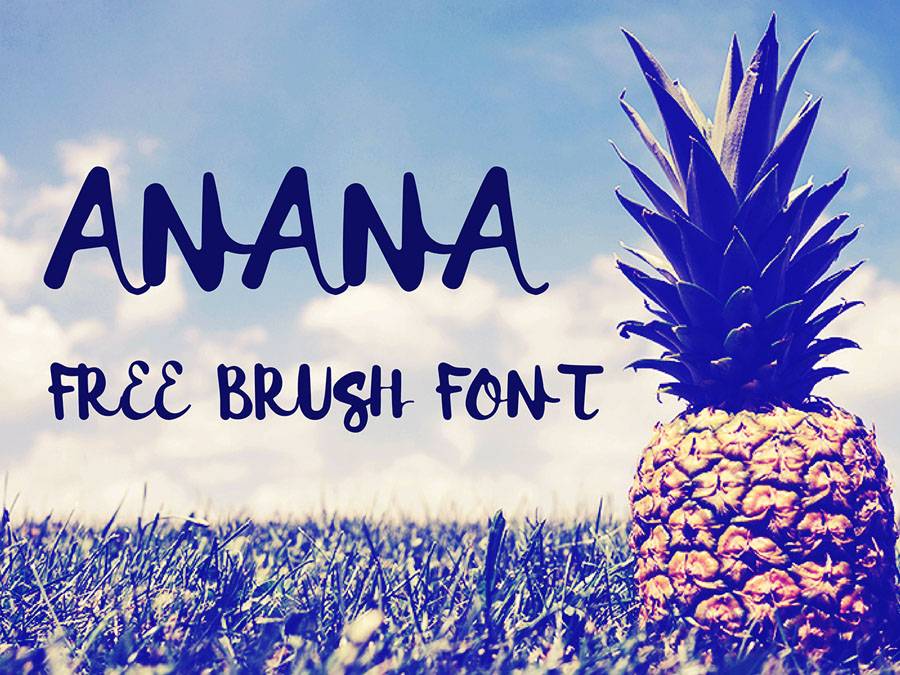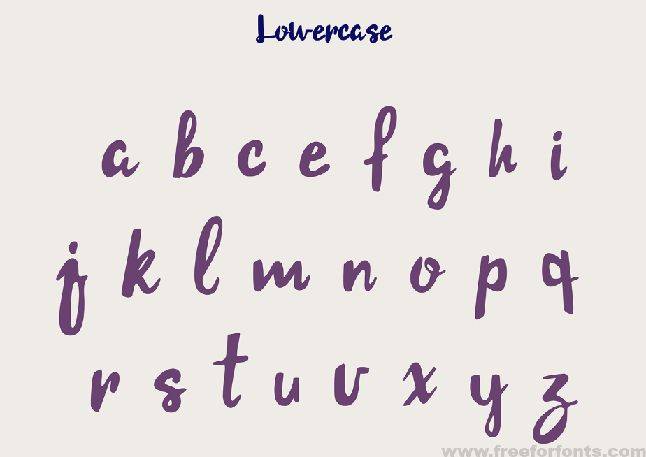
Anana is a lively and playful handwritten font with a casual, brush-script style that feels friendly and approachable. Its moderately tall x-height, varied stroke widths, and slightly irregular letterforms give it a relaxed, personal touch, making it perfect for creative branding, invitations, and informal headlines where warmth and personality are desired. This font works well in projects that want to convey charm and spontaneity, such as lifestyle blogs, packaging, or social media graphics.
Anana Font
About Anana Font